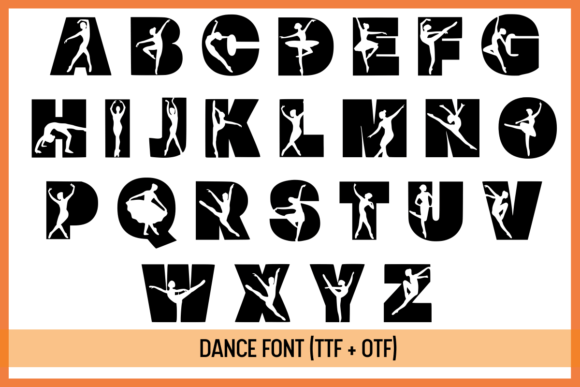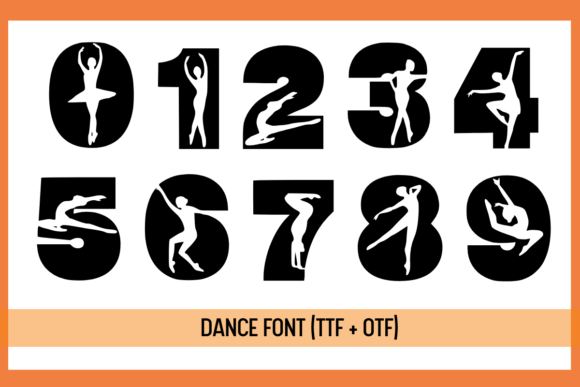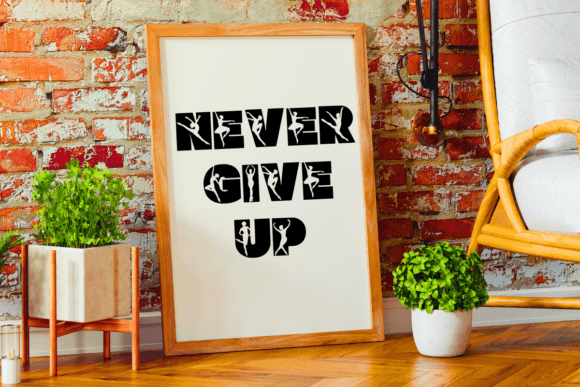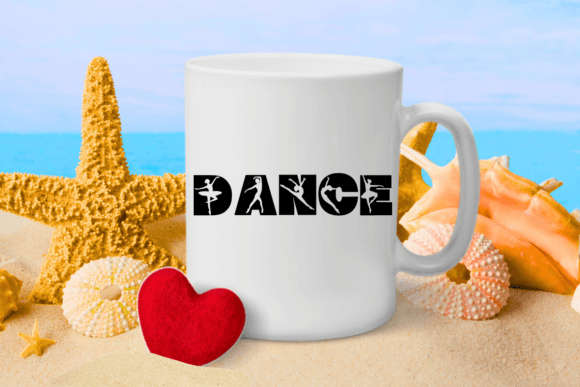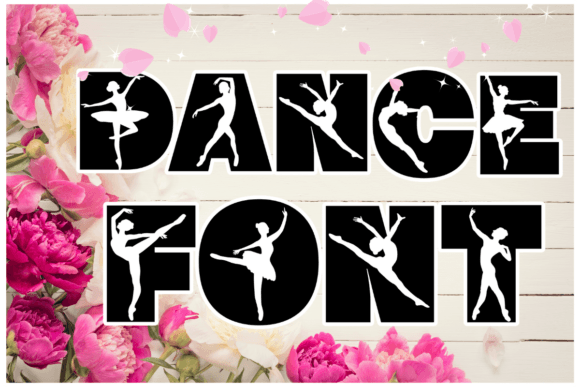
Feel the Rhythm Come Alive with the ‘Dance’ Font
Are you looking for a font that can add a touch of elegance and movement to your designs? Look no further than the ‘Dance’ font! This beautiful font is inspired by the world of dance, with each letter designed to resemble a stage hosting graceful ballet silhouettes. The result is a stunning blend of movement and style that is perfect for adding flair to any project.
The Inspiration Behind the ‘Dance’ Font
The ‘Dance’ font was created with the intention of capturing the beauty and elegance of dance. The designer wanted to create a font that would evoke the feeling of movement and energy, while also conveying a sense of sophistication and style. The result is a font that is both visually striking and highly versatile.
Design Features of the ‘Dance’ Font
The ‘Dance’ font features a range of design elements that make it truly unique. Each letter is designed to resemble a stage, with graceful ballet silhouettes woven throughout the design. The font is highly stylized, with flowing lines and curves that give it a sense of movement and energy.
Perfect for a Range of Design Projects
The ‘Dance’ font is perfect for a wide range of design projects, from dance-themed posters and flyers to elegant wedding invitations and more. Its versatility makes it a great choice for designers who want to add a touch of elegance and sophistication to their work.
Key Benefits of Using the ‘Dance’ Font
- Unique and eye-catching design: The ‘Dance’ font features a truly unique design that is sure to grab attention.
- Highly versatile: The font can be used for a wide range of design projects, from posters and flyers to invitations and more.
- Elegant and sophisticated: The font’s elegant design makes it perfect for projects that require a touch of sophistication.
- Easy to read: Despite its stylized design, the ‘Dance’ font is highly legible and easy to read.
Tips for Using the ‘Dance’ Font
To get the most out of the ‘Dance’ font, here are a few tips to keep in mind:
- Use it sparingly: While the ‘Dance’ font is beautiful, it can be overwhelming if used too much. Use it sparingly to add a touch of elegance to your design.
- Pair it with a simple font: To create visual interest, pair the ‘Dance’ font with a simple font for body text.
- Experiment with colors: The ‘Dance’ font looks great in a range of colors, so don’t be afraid to experiment and find the perfect hue for your design.
The ‘Dance’ font is a beautiful and elegant font that is perfect for adding a touch of movement and style to any design project. Its unique design, versatility, and ease of use make it a great choice for designers who want to create stunning and sophisticated designs. Whether you’re working on a dance-themed project or simply want to add a touch of elegance to your work, the ‘Dance’ font is sure to impress.